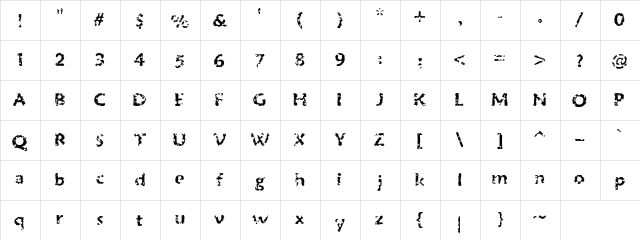
SA-Eroded Heart Regular
Design Context for SA-Eroded Heart Typeface
SA-Eroded Heart embraces imperfection — its rough, textured character adds raw authenticity to designs that want to feel lived-in and unconventional.
Suited to punk-influenced zines, underground music branding, streetwear, and raw, anti-corporate design.